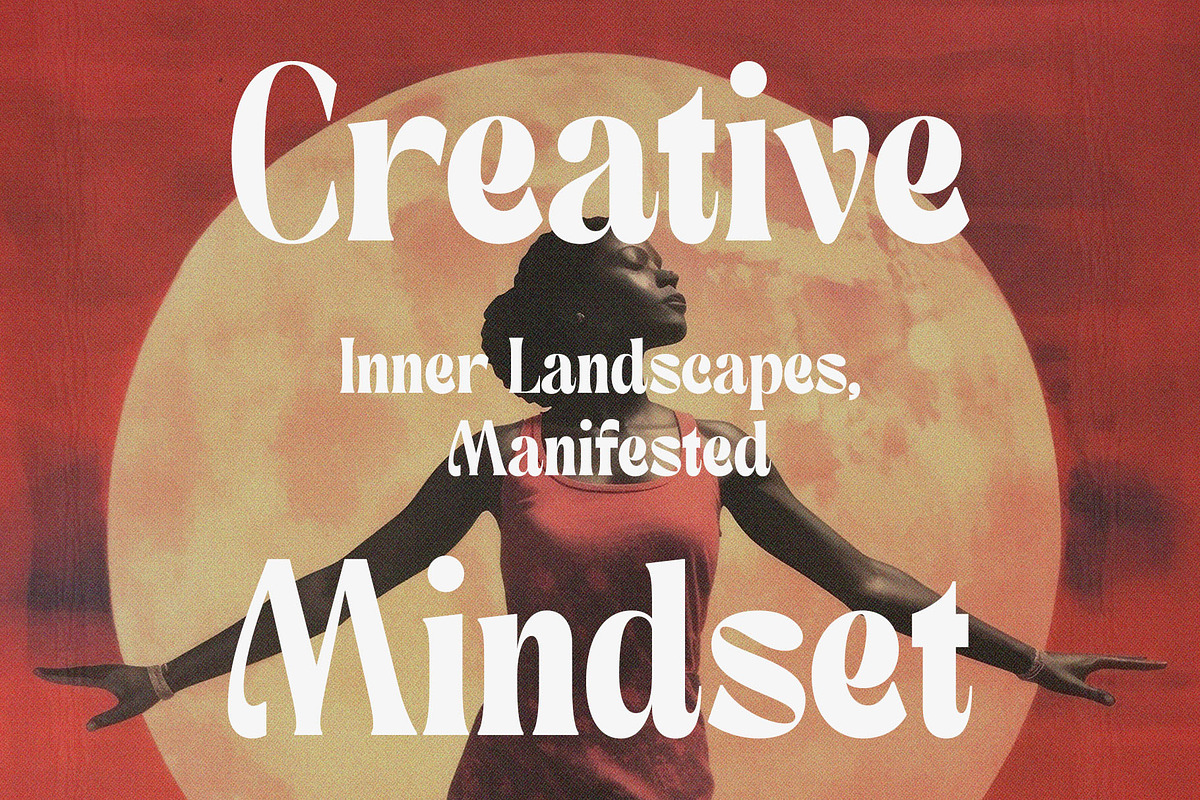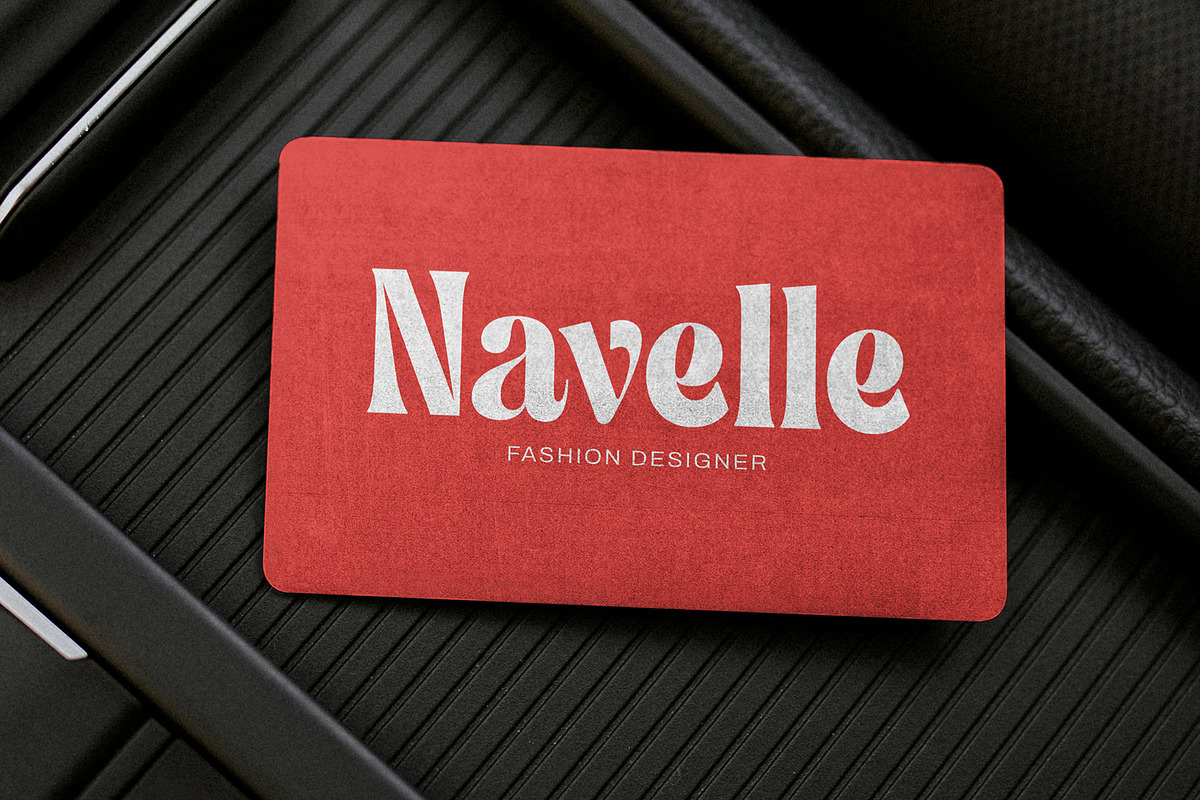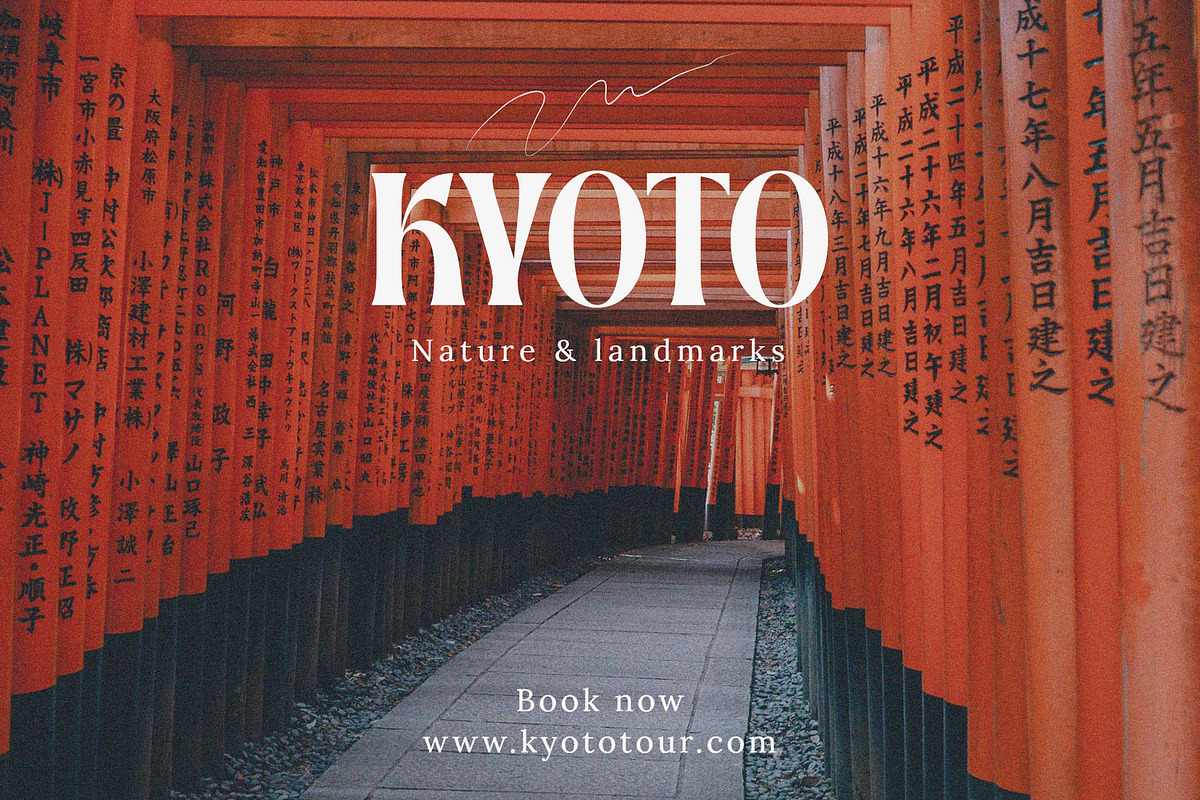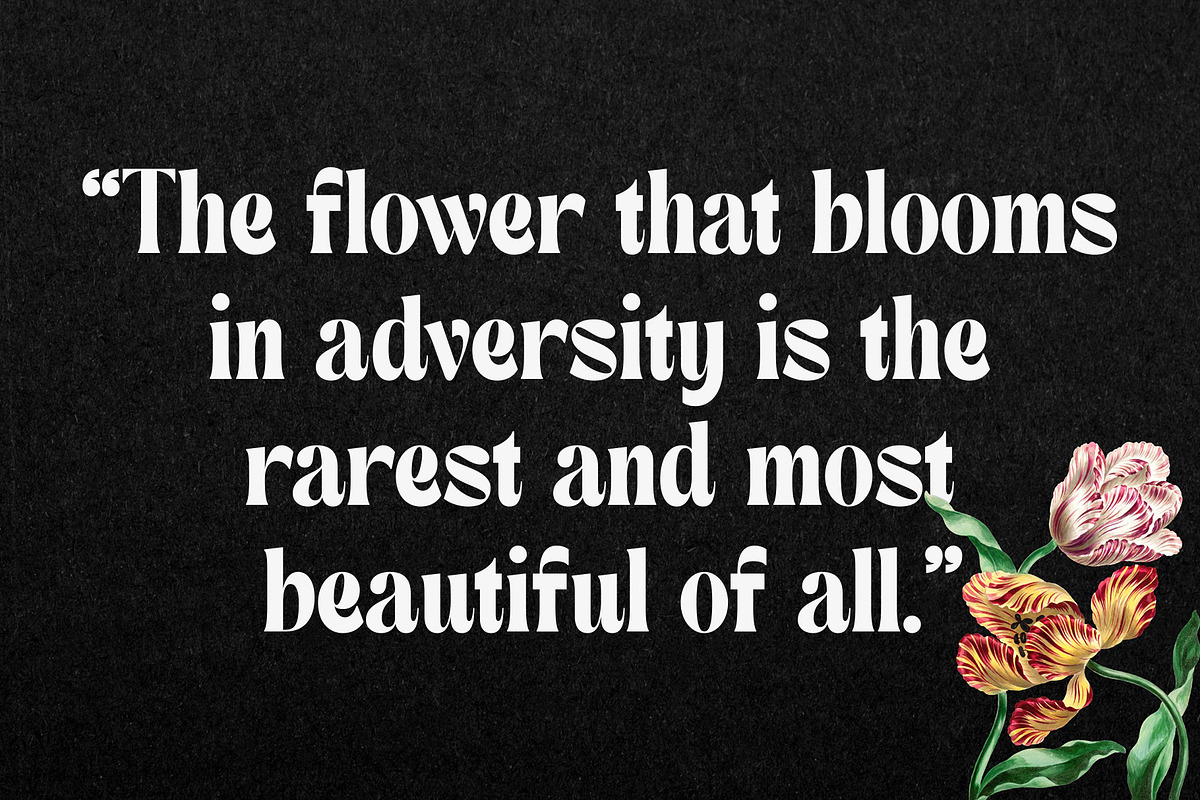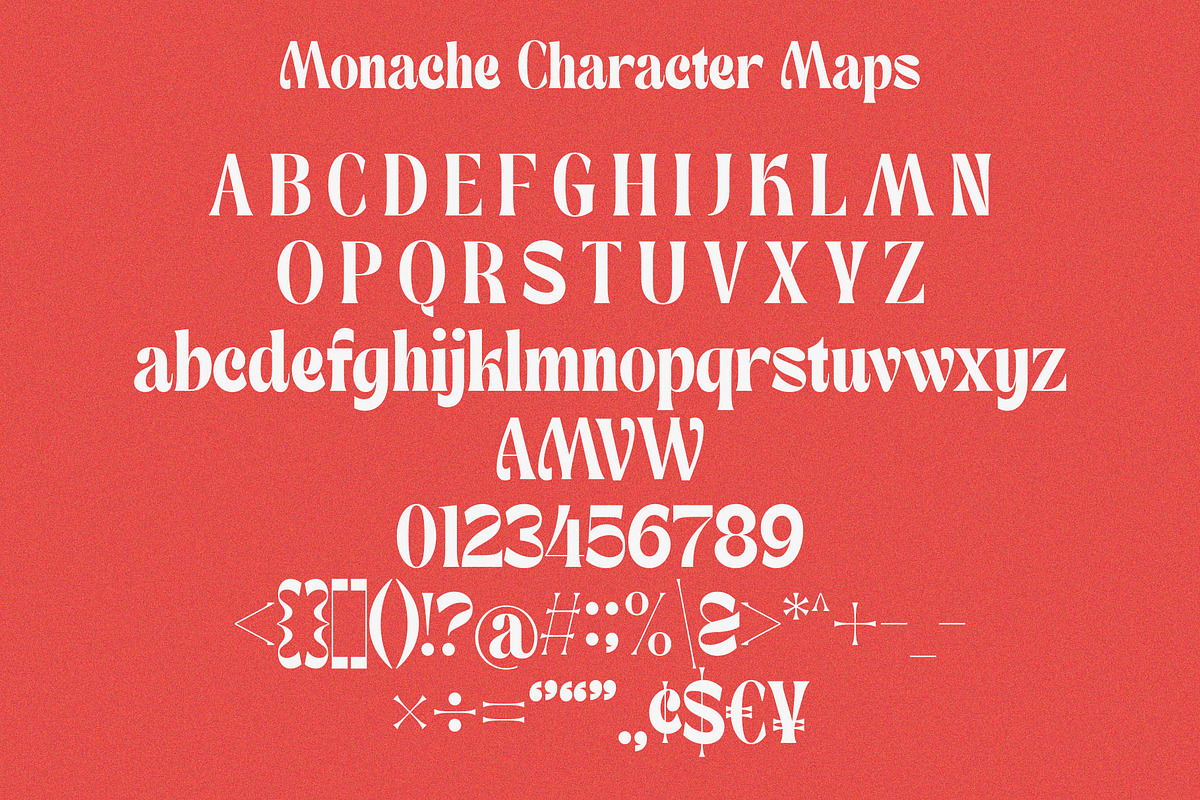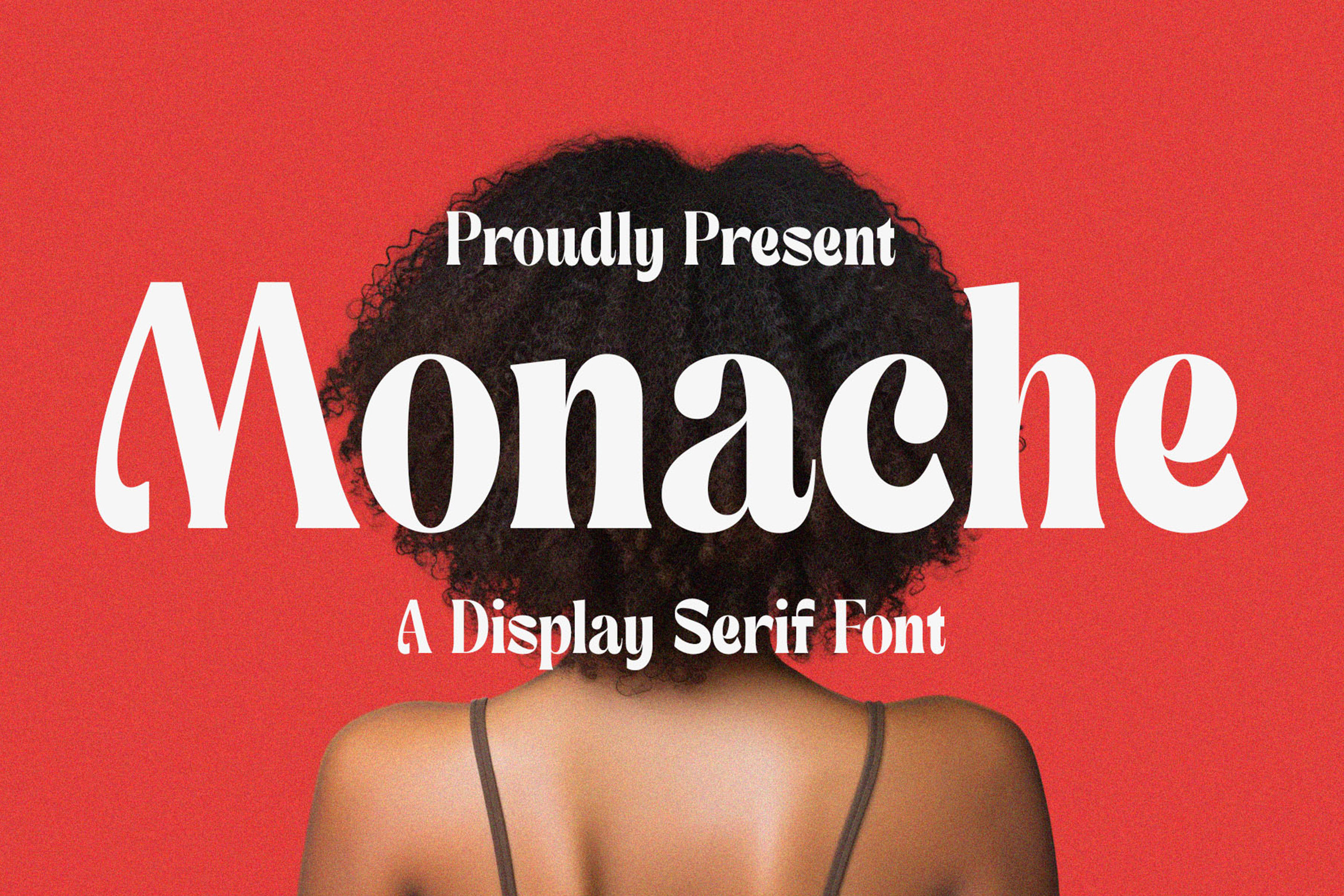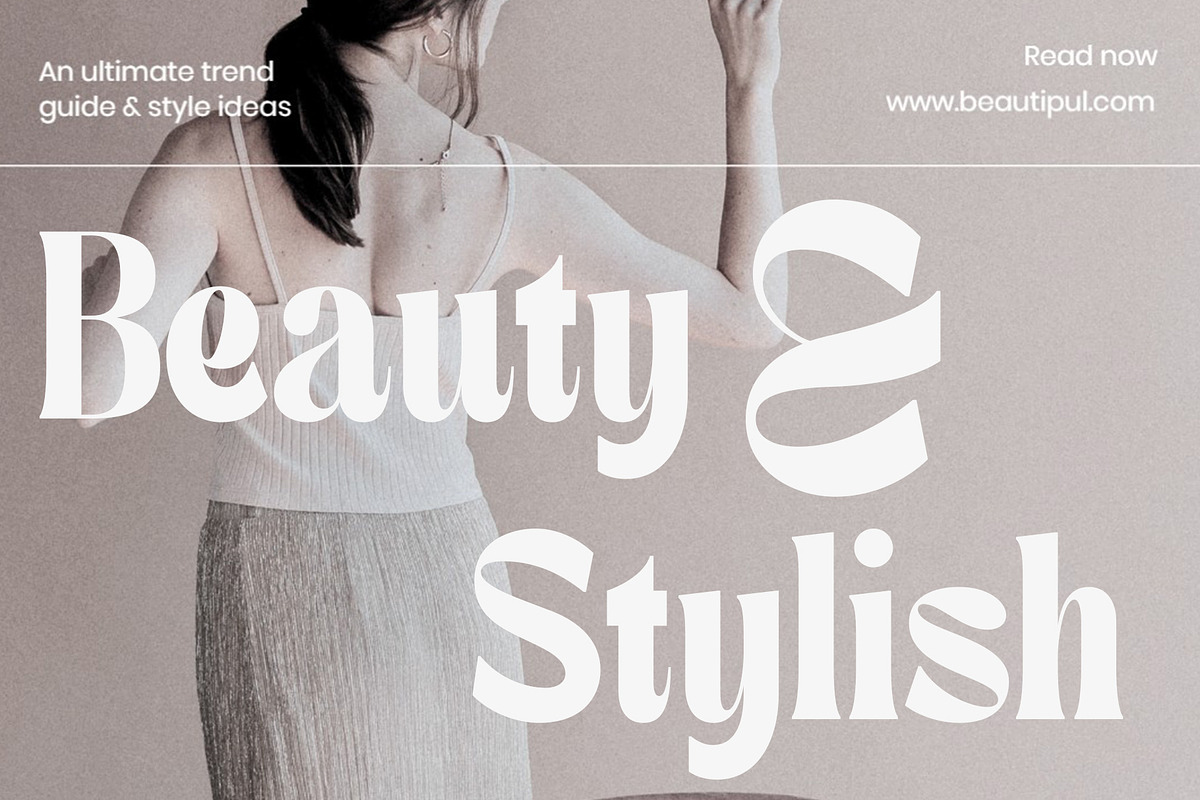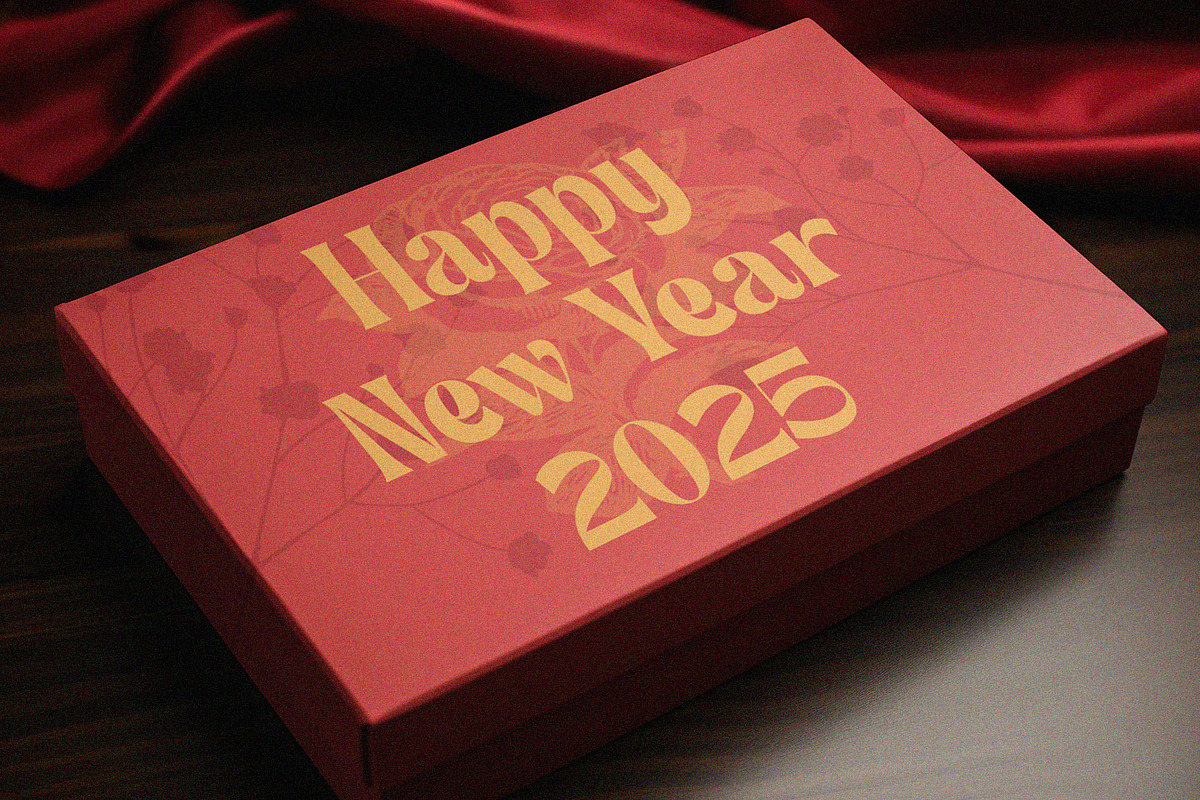
Monache - Display serif font
Introducing Monache - Display serif font. Monache is a display serif font, stylish & elegant serif font, This type of font is very suitable for your various needs such as branding projects, logos, social media posts, advertisements, labels, product packaging, photography, wedding designs, watermarks, invitation product designs, stationery, and any project.
- Ligature & alternates